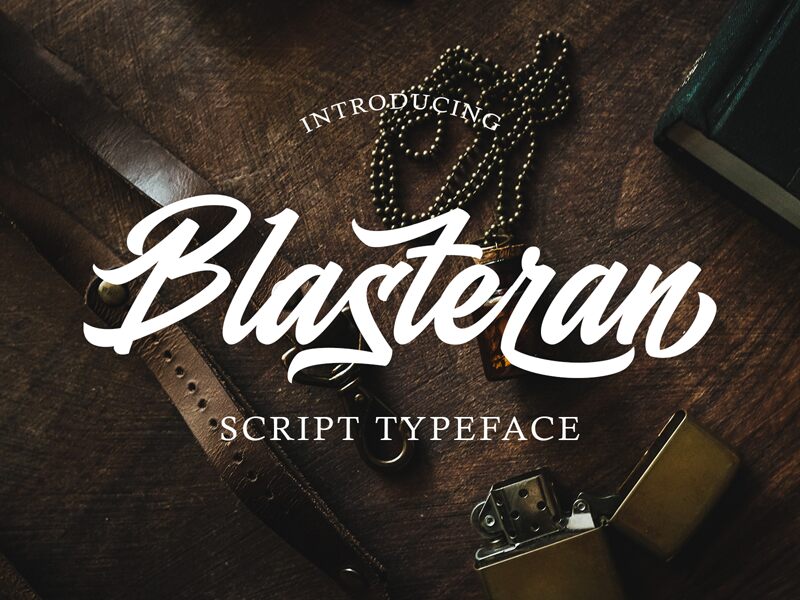
Blasteran font family by Kong Font consists of 2 font styles inspired by a calligraphy pen’s free flow. This nostalgic font with a clear vintage flair is expressed in its dynamic characters and energetic movement. Made as a modern calligraphic font, this free font family is adequate for many versatile applications.
Add a casual elegance element to your typography with the right mix and match between the fonts included. Like any other calligraphy font, Blasteran is ideal for wedding-related projects; this includes invitations, accessories, and decorations. It is also suitable for use in branding, packaging, logos, badges, apparel, book covers, product labels, and many other designs.